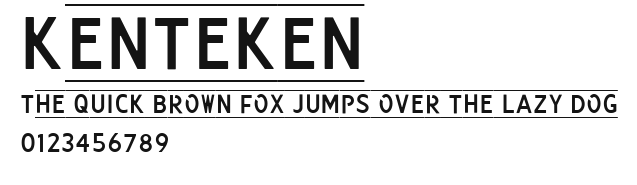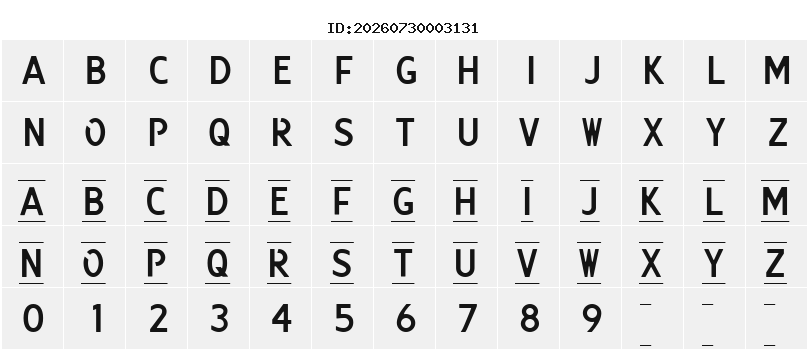
• Font Name: Kenteken
• Full Font Name: Kenteken
• Manufacturer: LeFly
About Kenteken.ttf
Kenteken.ttf is a modern, elegant sans-serif font designed for ultimate readability and visual harmony. Perfect for branding, headlines, web design, and print materials.